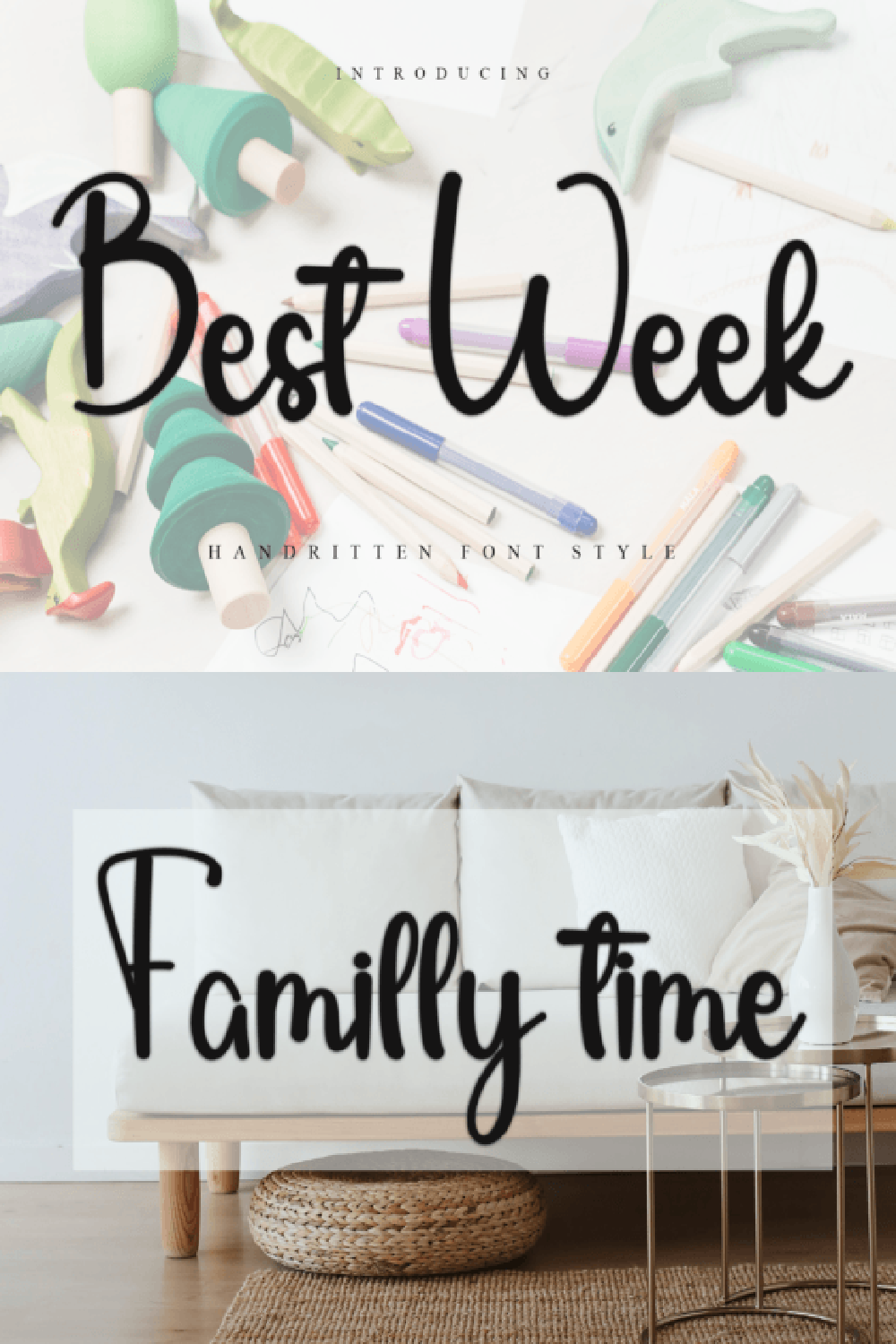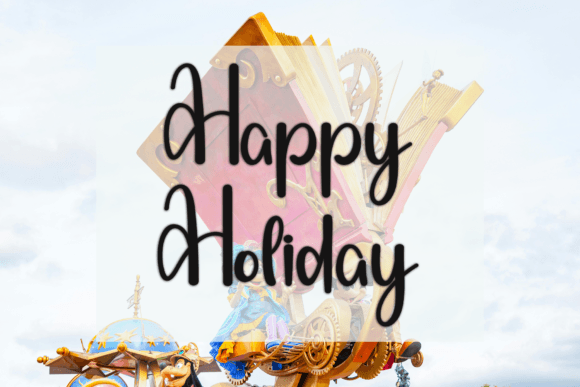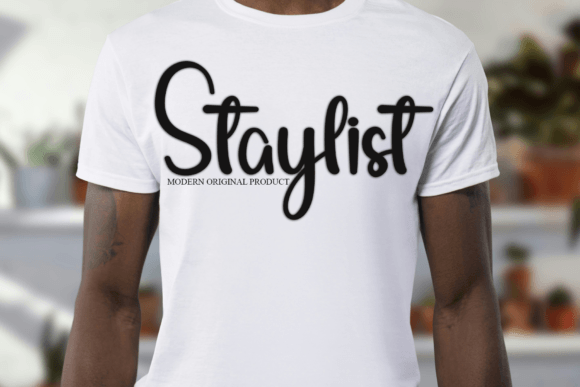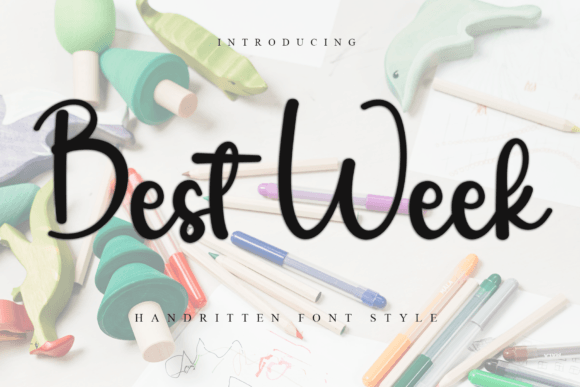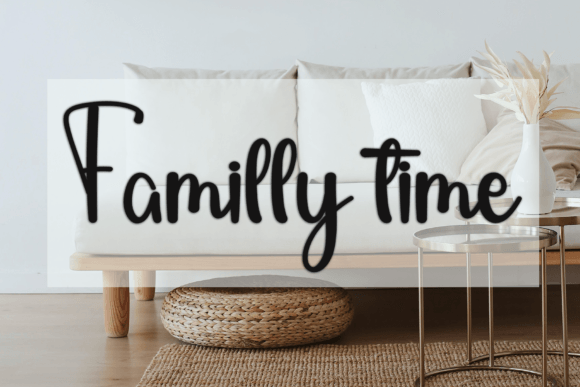
Best Week Font: A Cute Handwritten Font for Cricut & DIY Projects
About the Best Week Font
We are excited to introduce Best Week Font, a must-have typeface for any serious designer. Best Week is a neat and beautiful handwritten font described by an elegant touch, perfect for your favorite projects.
Fall in love with its incredibly distinct and timeless style, and use it to create spectacular designs!
Best Week Font Usage Examples